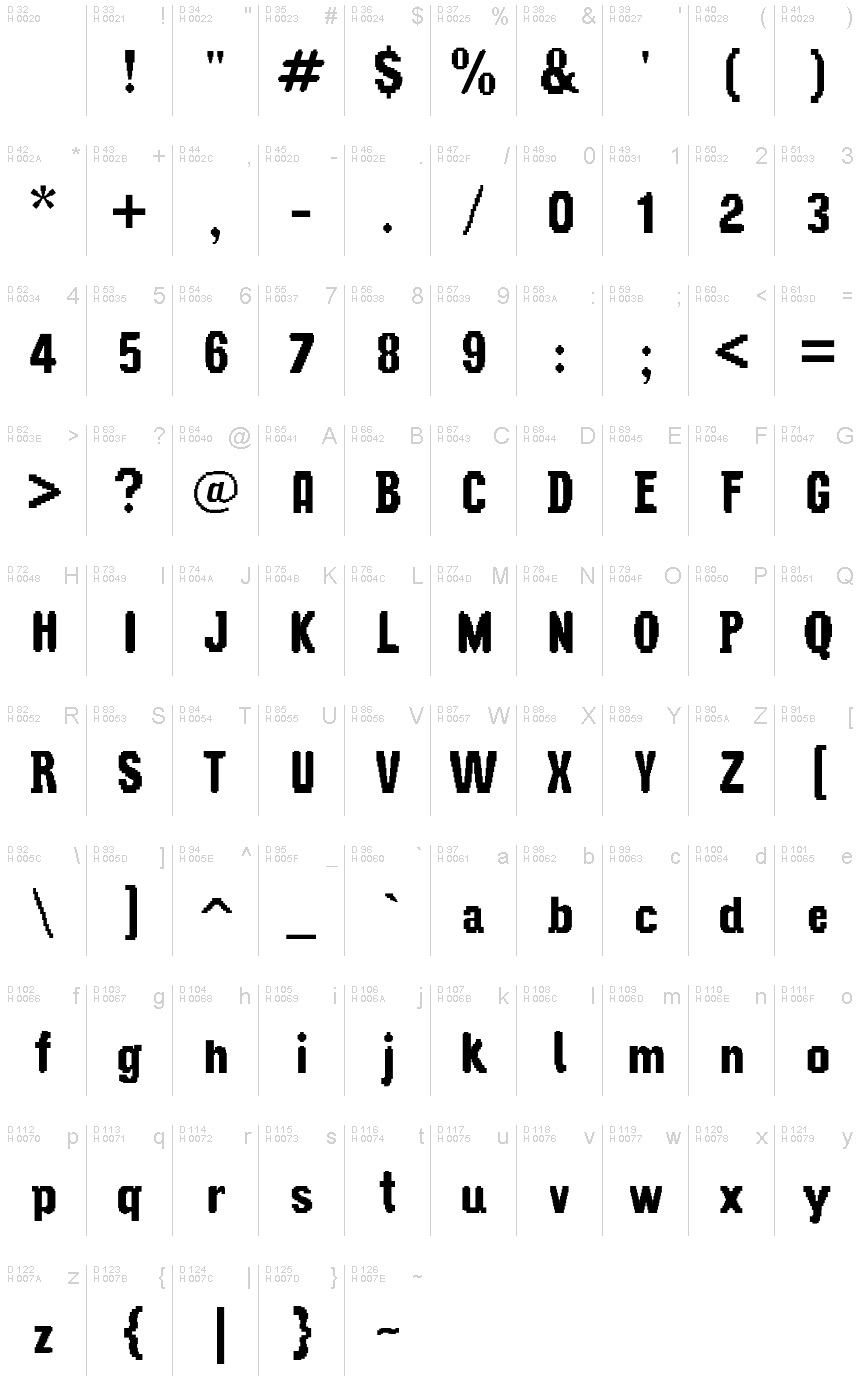
Pixel Book
Pixel Book, designed by Galdino Otten, is a striking display font that captures the essence of digital aesthetics. With its semi-bold weight and condensed width, this font adds a touch of modernity and sleekness to any project.
Perfect for branding materials, websites, and app interfaces, Pixel Book brings a contemporary edge to logos, headlines, and titles. Its unique styling creates a strong visual impact while maintaining legibility. Whether you're designing for tech startups or futuristic campaigns, Pixel Book is your go-to font for creating visually stunning and memorable designs.